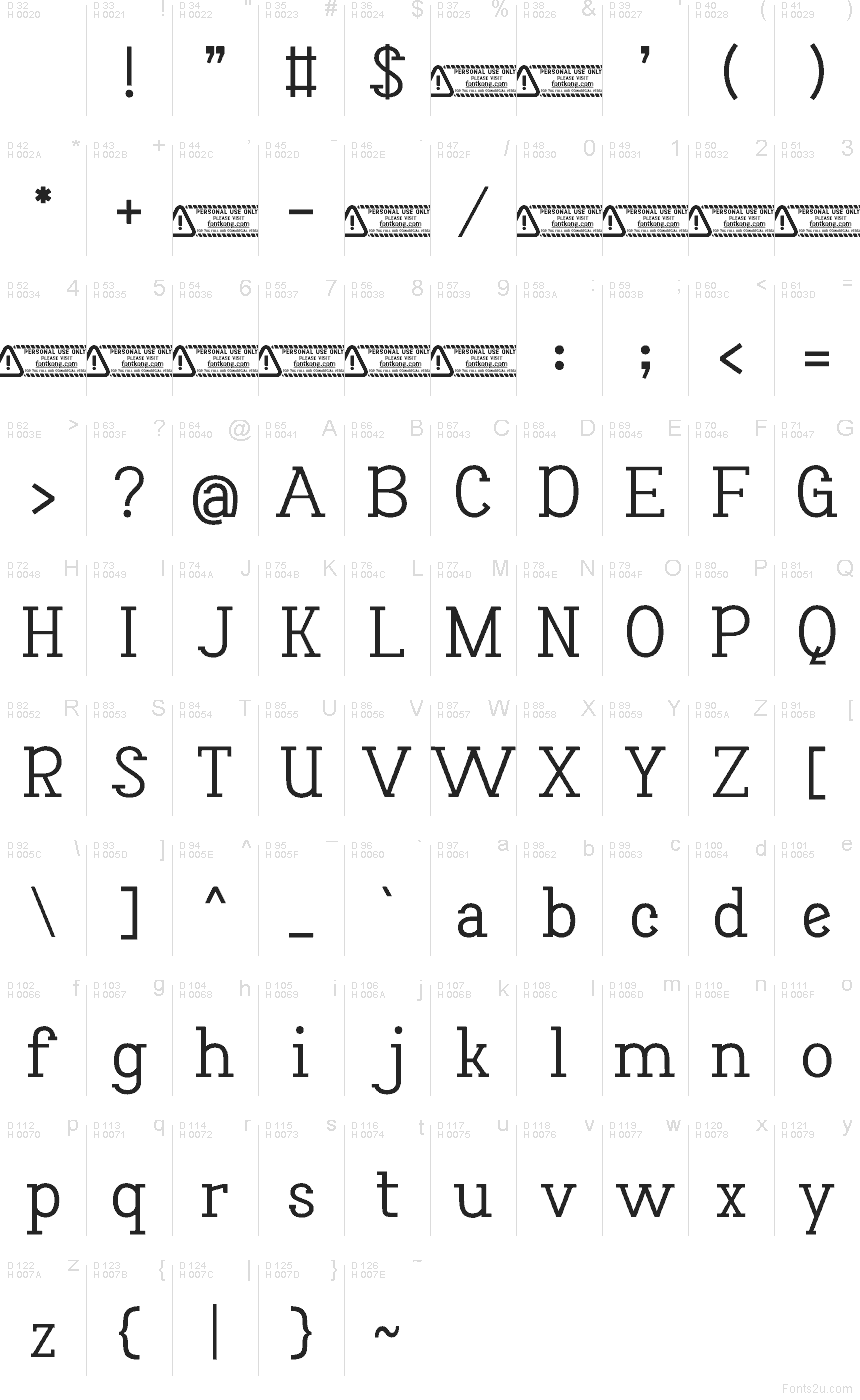
Movein font by Kong Font is a free slab serif typeface that brings a firm, grounded feel without looking heavy-handed. Its straight, confident slabs and calm, even strokes create a steady rhythm that’s easy to read, whether you’re scanning a headline or settling into a paragraph. The letters feel sturdy and reliable, with just enough warmth in the curves to keep things from feeling mechanical.
Using Movein, you get a workhorse slab that shines on editorial layouts, branding systems, packaging, posters, book covers, and signage where clarity really matters. This free font handles both bold statements and longer copy with quiet authority, making it a natural fit for minimalist, typography-led designs. Try pairing Movein with a simple geometric sans for captions or UI elements and let the slab serif carry your main titles and key messages.